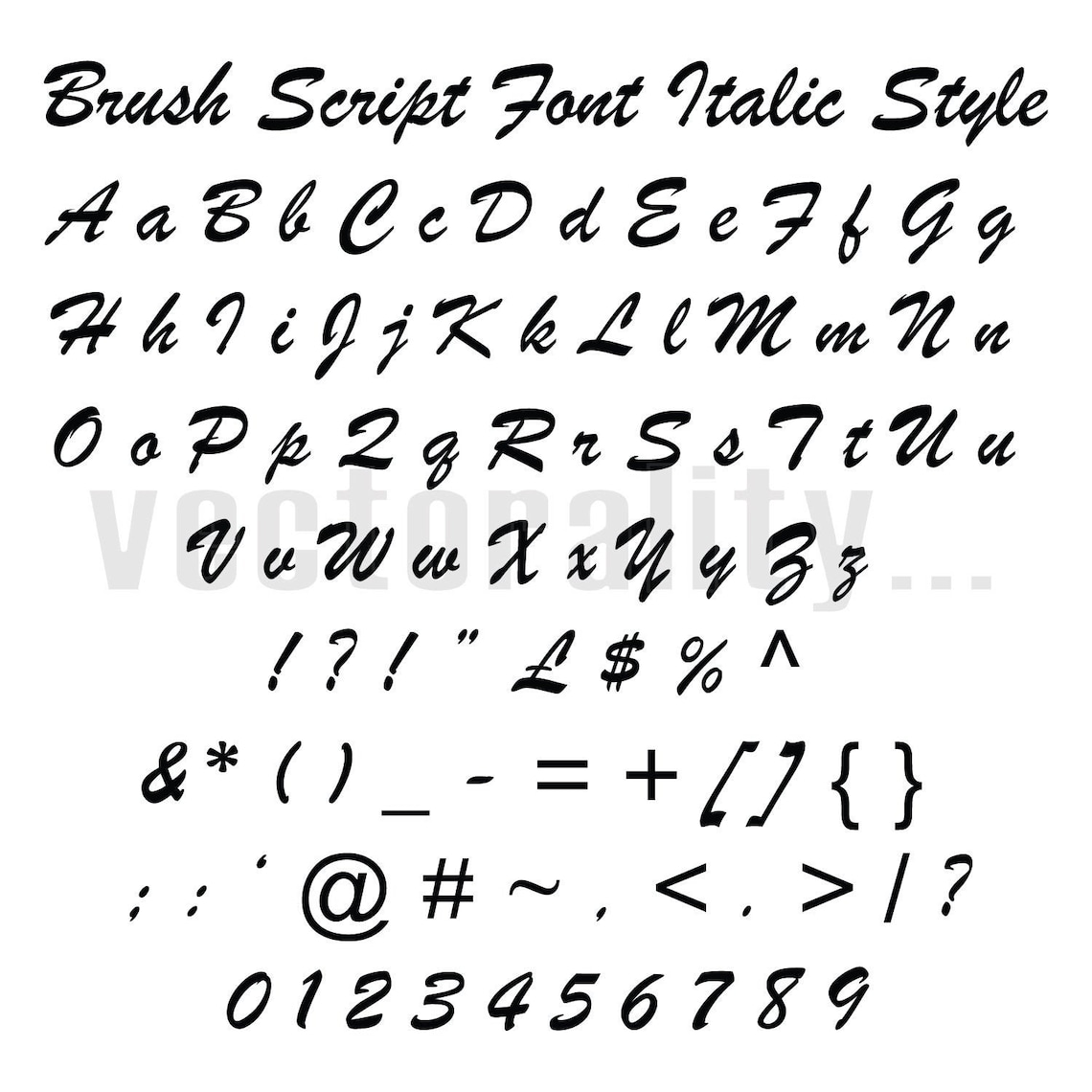
Brush Script Mt Font . It has a casual, handwritten look and. Brush script is a script typeface designed by robert e. 'find my font' is an easy to use application for identifying fonts in digital images. The author of newspaper font inknew that is free for both personal and commercial uses. Brush script mt font brush developed by robert e. It comes with capitals and few other symbols. This font is free for personal and commercial use and was designed in 1942 by robert e. Brush script mt font is a high quality brush font that is designed by robert e and is available for free download personal & commercial use. Download brush script mt font, a casual connecting script typeface that looks like liquid font. Smith in 1942 for american type founders.
Brush script mt font is a high quality brush font that is designed by robert e and is available for free download personal & commercial use. Brush script mt font brush developed by robert e. The author of newspaper font inknew that is free for both personal and commercial uses. Brush script is a script typeface designed by robert e. Download brush script mt font, a casual connecting script typeface that looks like liquid font. It has a casual, handwritten look and. This font is free for personal and commercial use and was designed in 1942 by robert e. Smith in 1942 for american type founders. It comes with capitals and few other symbols. 'find my font' is an easy to use application for identifying fonts in digital images.
Brush Script Mt Font Smith in 1942 for american type founders. It comes with capitals and few other symbols. Brush script is a script typeface designed by robert e. Brush script mt font brush developed by robert e. The author of newspaper font inknew that is free for both personal and commercial uses. 'find my font' is an easy to use application for identifying fonts in digital images. Smith in 1942 for american type founders. It has a casual, handwritten look and. Download brush script mt font, a casual connecting script typeface that looks like liquid font. This font is free for personal and commercial use and was designed in 1942 by robert e. Brush script mt font is a high quality brush font that is designed by robert e and is available for free download personal & commercial use.
YOUR TEXT in brush Script Mt Font, up to 20 Characters Etsy Brush Script Mt Font Smith in 1942 for american type founders. The author of newspaper font inknew that is free for both personal and commercial uses. It comes with capitals and few other symbols. 'find my font' is an easy to use application for identifying fonts in digital images. Brush script mt font brush developed by robert e. Download brush script mt font, a. Brush Script Mt Font.
Brush Script MT Embroidery Font Embrilliance fonts embroidery fonts Brush Script Mt Font Brush script is a script typeface designed by robert e. Download brush script mt font, a casual connecting script typeface that looks like liquid font. It has a casual, handwritten look and. It comes with capitals and few other symbols. Brush script mt font brush developed by robert e. This font is free for personal and commercial use and was. Brush Script Mt Font.
Brush script font free Brush Script Mt Font This font is free for personal and commercial use and was designed in 1942 by robert e. Brush script mt font is a high quality brush font that is designed by robert e and is available for free download personal & commercial use. Brush script mt font brush developed by robert e. It comes with capitals and few other symbols.. Brush Script Mt Font.